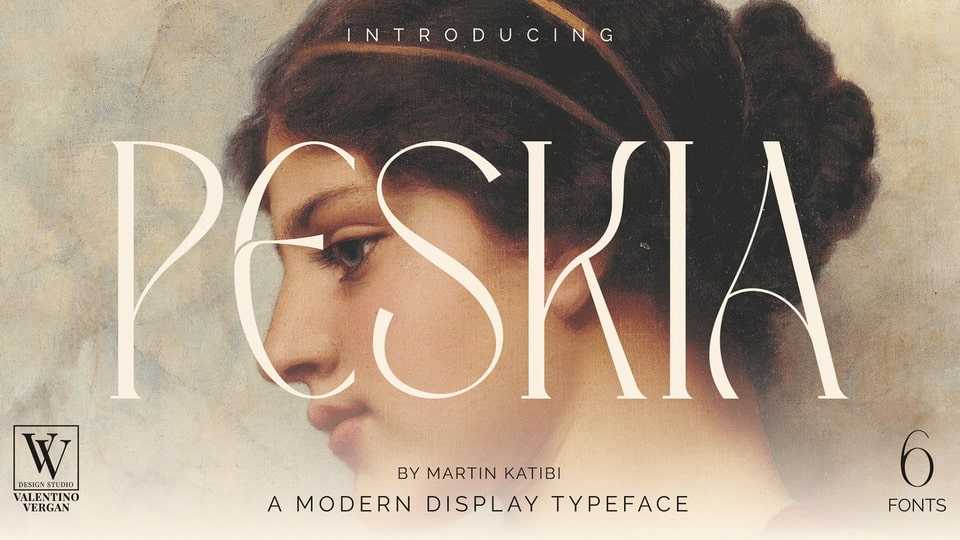
Download Peskia font, a modern typeface with lots of elegance and originality. The tall and slim nature of the Peskia typeface give it a sophisticated yet contemporary nostalgic look.
Designer: Valentino Vergan